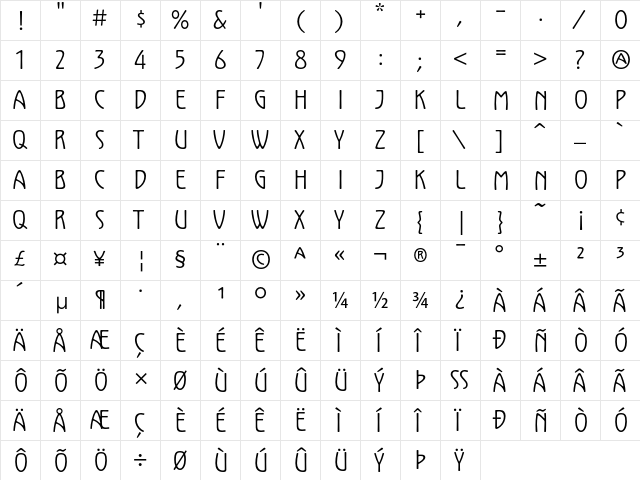
Kolo LP Narrow
Design Context for Kolo LP Typeface
Kolo LP offers clean, dependable letterforms without strong stylistic allegiance, making it a practical choice for designers who need flexibility. The condensed width makes it efficient for tight spaces without sacrificing legibility.